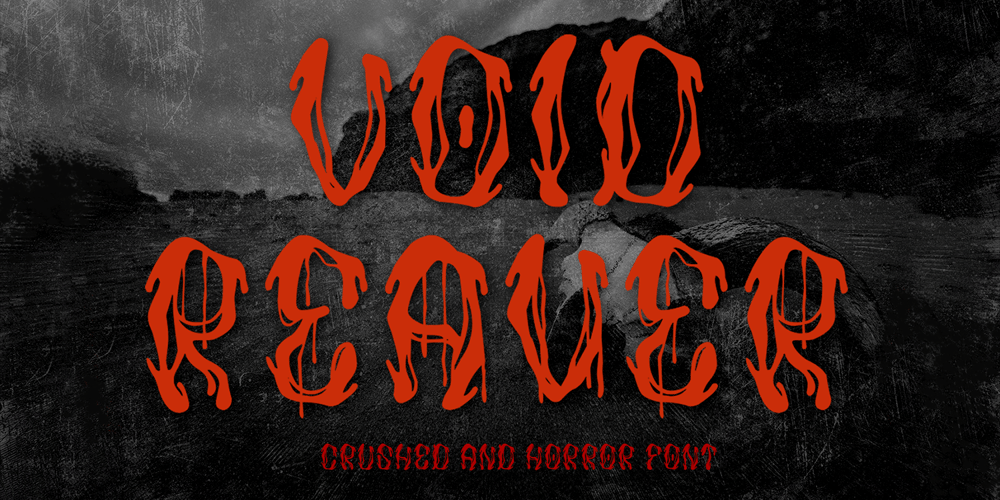
Void Reaver Font Family was designed by Zamjump and published by Zamjump. Void Reaver contains 1 styles and family package options. Introducing Void Reaver, a chilling masterpiece perfectly blending the themes of crash and horror. This unique typeface is meticulously crafted to evoke an unsettling and edgy atmosphere, making it an ideal choice for various applications.This font is your go-to choice for infusing a dark and mysterious atmosphere into a variety of creative projects, from social media graphics to website design. Elevate your designs with a font that leaves a lasting impression and invites exploration into the realms of crash and horror.